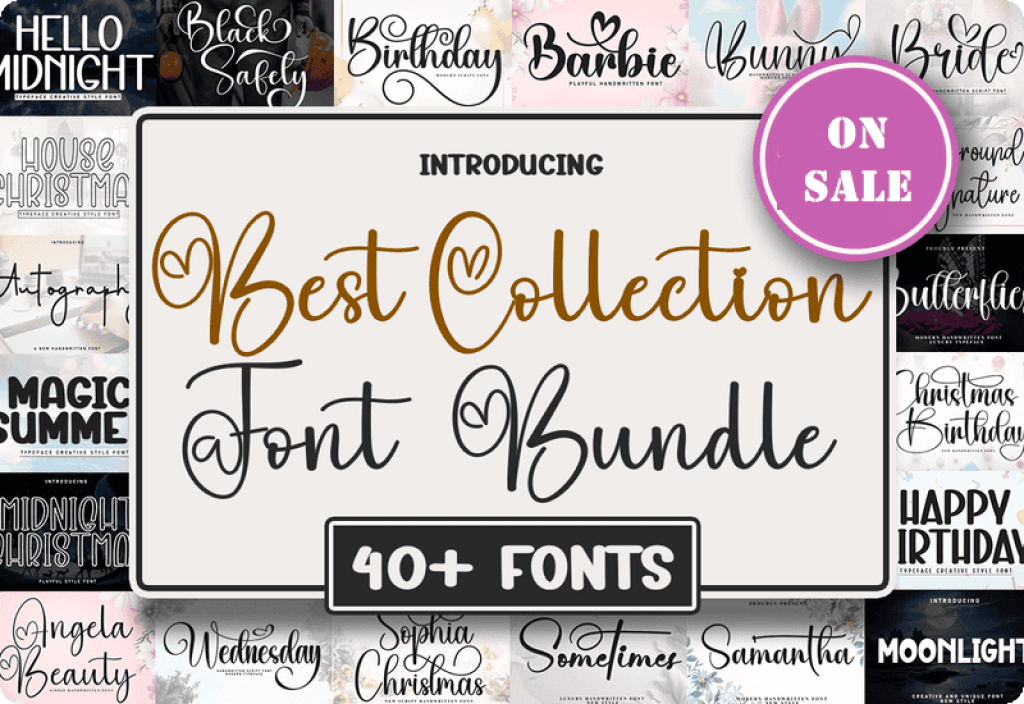
Ultimate Font Bundle: 47 Premium Typefaces for Every Creative Project
The Best Collection Font Bundle is an exceptional compilation crafted by Creativewhitee, featuring 47 premium fonts that cater to a broad range of design needs. Whether you are designing for weddings, branding, social media posts, cards, or seasonal events like Christmas and birthdays, this bundle has you covered. With an original value of $566, this bundle is not only a steal but also includes a commercial license, making it an irresistible offer for designers and creatives alike.
Diverse Font Styles for Every Occasion
This collection includes an impressive variety of font styles ranging from elegant scripts to playful handwriting, and bold display fonts. For instance, the Bride Script & Handwritten Font is perfect for romantic wedding invitations, while the Happy Birthday Display Font brings a festive touch to birthday cards.
User-Friendly for All Design Levels
The fonts in this bundle are designed to be user-friendly, suitable for both beginners and advanced designers. The variety of fonts enhances your design toolkit, enabling you to create unique and personalized projects with ease.
Perfect for Seasonal and Thematic Designs
With fonts like Sophia Christmas Script and Santa Neon Display, this collection is geared towards creating memorable seasonal designs. These fonts add a festive touch to your Christmas cards, holiday promotions, and themed branding materials.
Detailed Font Overview
- Elegant Scripts: Fonts like Bride Script, Background Signature Script, and Samantha Script bring sophistication and grace, ideal for formal events and sophisticated branding.
- Playful Handwriting: Chalkboard Display and Bunny Script Fonts are excellent choices for fun, informal projects that require a whimsical touch.
- Bold Displays: For attention-grabbing headlines and impactful designs, fonts such as Black Stencil and Santa Cartoon Display offer the boldness needed to stand out.
- Thematic Sets: Fonts like Christmas Alphabet and Signature Enchanting Script cater to specific themes, providing the perfect typography solution for thematic projects.
- Brush Signature Script & Handwritten Font By Creativewhitee
- Christmas Birthday Fuentes Caligráficas Font By Creativewhitee
- House Christmas Display Font By Creativewhitee
- Satisfy Czcionki Skryptowe Czcionka Przez Creativewhitee